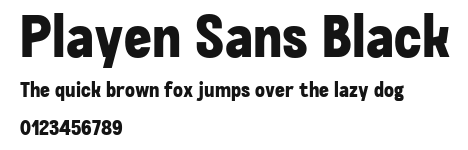
Playen Sans Black Preview
• Font Name: Playen Sans Black
• Full Font Name: Playen Sans Black
• PostScript Name: PlayenSans-Black
• Designer: Arwan Sutanto
• Manufacturer: Southills Studio
About Playen Sans Black.ttf
Playen Sans Black.ttf is a modern, elegant sans-serif font designed for ultimate readability and visual harmony. Perfect for branding, headlines, web design, and print materials.